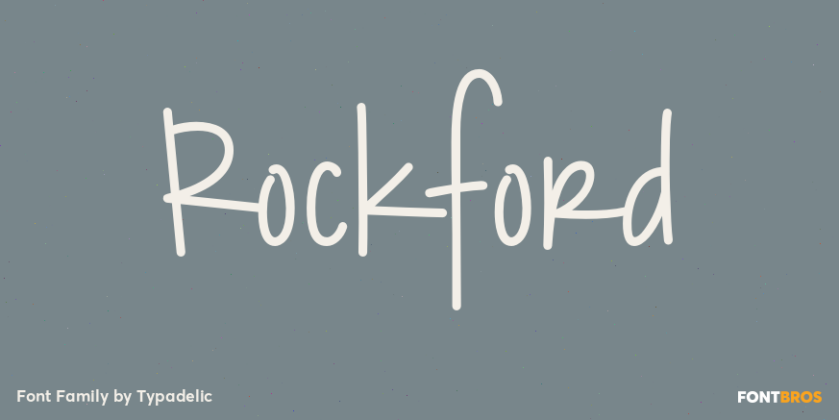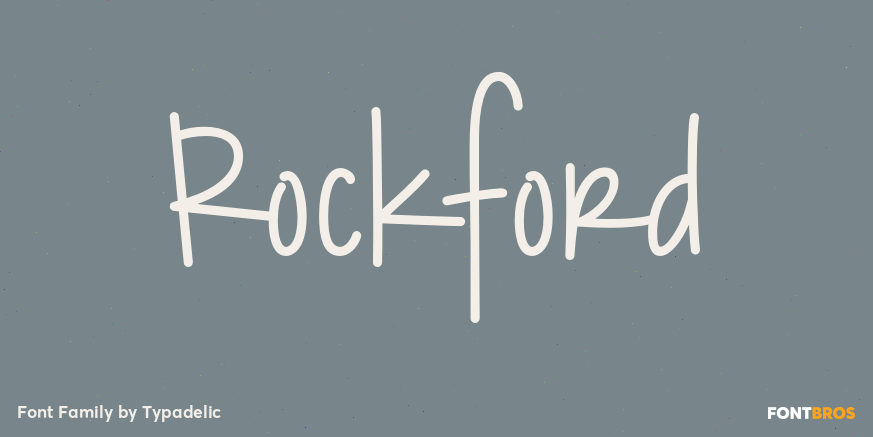
About Rockford
Completely computer generated, Rockford exudes an energetic, yet quirky handwritten quality. Rockford doesn\’t follow many typographical rules, which make it perfect for casual notes, scrapbooking, and greeting cards.